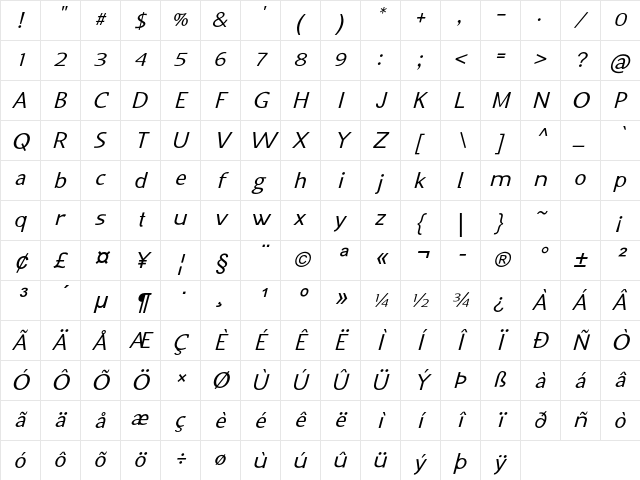
Inchworm Italic Free Font
Inchworm Italic
Design Context for Inchworm
Inchworm is a composed and adaptable typeface that performs quietly and consistently across a wide range of design contexts. The slanted form adds forward momentum and visual energy.